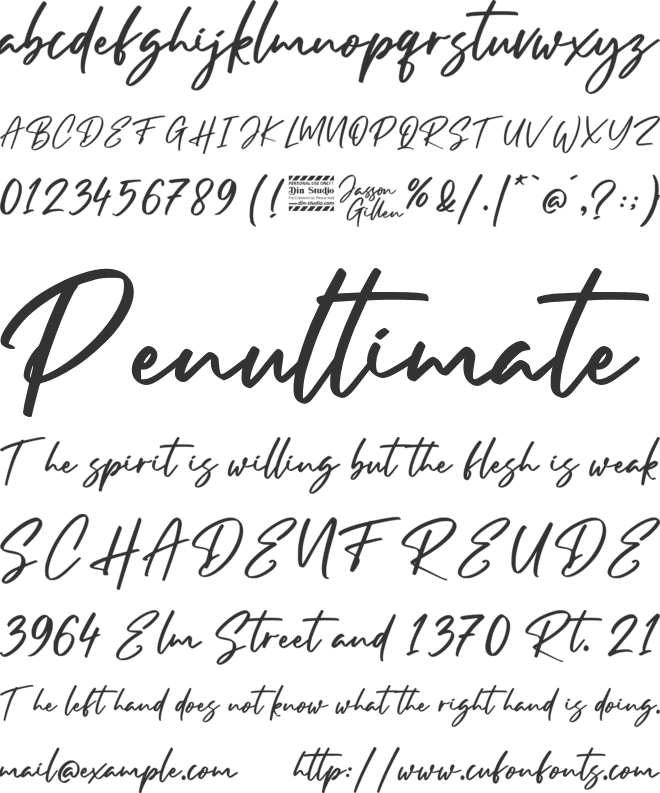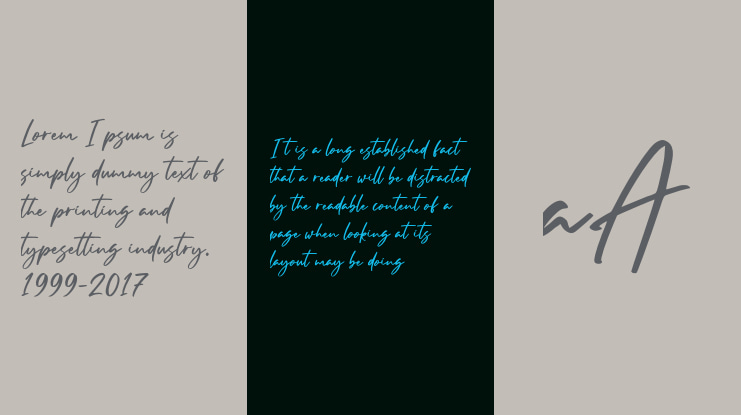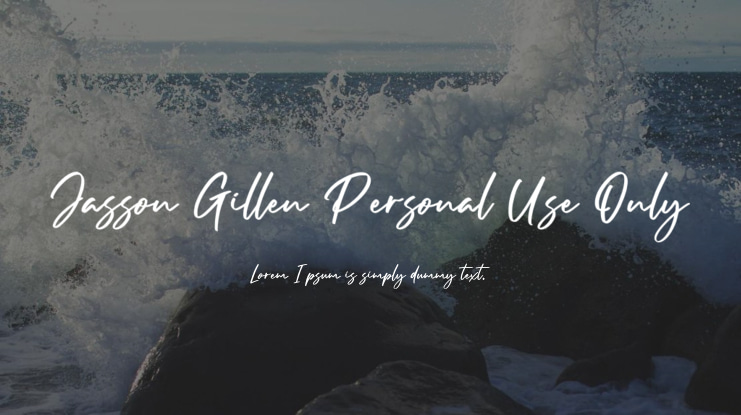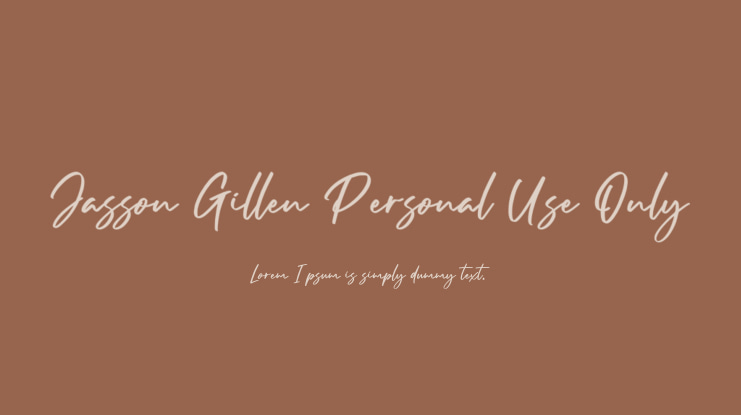
Jasson Gillen Font, a Stylish Signature font made with natural handwriting that will make your design projects more beautiful. This font is suitable for any designs, like branding, quotes, invitation, ads, t-shirt printings, etc.
Features include:
• Ligatures
• Stylistic Sets
• Multilingual Supports
• PUA Encoded
• Numerals and Punctuations